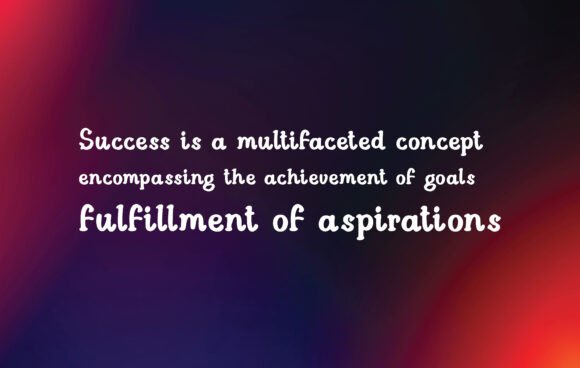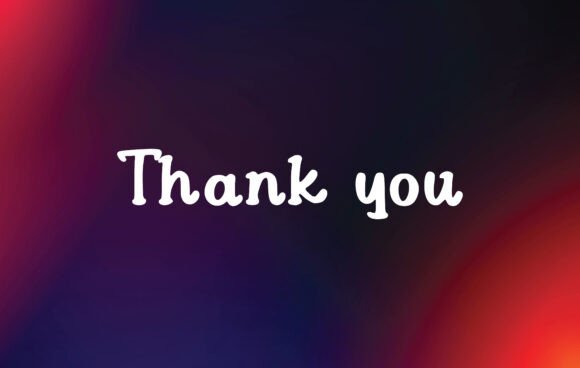
Introduction to Khalani Font
Have you ever stared at a blank page, feeling like your creative ideas are stuck in limbo? You know the feeling – the frustration, the anxiety, the desperation for inspiration to strike. But then, it happens. A spark of creativity ignites, and your imagination runs wild. For designers, this moment is a beautiful thing, and the right font can be the catalyst that takes their ideas to the next level.
Enter the Khalani Font – a stunning, handwritten font that’s sure to elevate your creative project to new heights. With its high-quality design and transparent background, this font is a design resource like no other. Whether you’re working on a logo, branding, or quote, the Khalani Font is the perfect choice to make your design stand out. And the best part? It’s available for free download, making it a valuable asset for designers of all levels.
Key Features of Khalani Font
- Unique, hand-drawn design with a minimalist aesthetic, perfect for creative projects.
- High-quality font with transparent background, ideal for designers working on projects with complex backgrounds.
- Supports various languages, including Latin, making it a versatile design resource for global projects.
- Perfect for designers working on creative projects, such as branding, logos, and typography-based art.
Honest Review: Khalani Font
As a designer, I’m always on the lookout for high-quality design resources to elevate my creative projects. The Khalani Font has caught my attention with its unique, elegant style.
Here are some aspects that work well for the Khalani Font:
- ✨ High-quality font with a transparent background, making it perfect for overlaying on images or other design elements.
- ✨ Beautifully designed characters that are perfect for creating visually appealing typography.
However, I do have some concerns:
- ⚠️ Limited character set, which may not be suitable for long blocks of text.
- ⚠️ Not as versatile as some other fonts, which may limit its use in certain design projects.
Overall, I think the Khalani Font is a great addition to any designer’s toolkit. Its unique style and high-quality design make it a great choice for creative projects that require a touch of elegance. While it has some limitations, it’s definitely worth considering for your next design project.
Tips for Getting the Most Out of Khalani Font
To get the most out of the Khalani Font, use it on a transparent background to create a clean and minimalist design. You can also experiment with different font sizes and styles to add visual interest to your project.
The Khalani Font is perfect for creating beautiful and elegant designs, such as wedding invitations, business cards, and brochures. Its high-quality design makes it a great choice for any creative project that requires a sophisticated look.